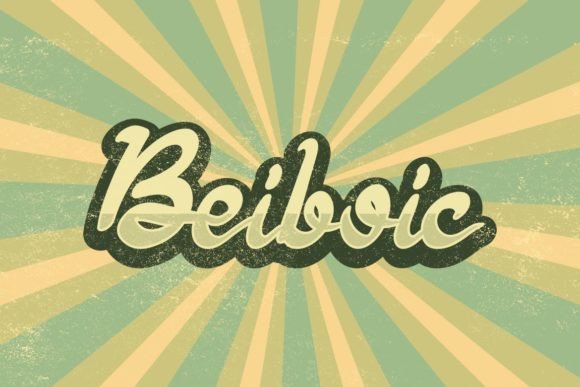
Immerse yourself in the world of Beiboic Font, a captivating script font family that will inject a touch of playful charm into your creative projects. Designed by the talented studioaary, Beiboic is not just a font; it's an expression of joy and exuberance.
With its whimsical and carefree strokes, Beiboic Font dances across your designs, adding a unique and personal touch to every word and phrase. Its enchanting curves and flourishes evoke a sense of wonder and delight, making it the perfect choice for projects that aim to capture the essence of happiness and optimism.
Whether you're a seasoned designer or just starting your creative journey, Beiboic Font is an essential tool in your font collection. Its versatility knows no bounds, making it suitable for a wide range of projects, from whimsical invitations and greeting cards to eye-catching logos and social media graphics.
Imagine the impact Beiboic Font will have on your script tattoos designs. Its flowing lines and delicate details will bring your artistic vision to life, creating tattoos that are both meaningful and visually stunning. Each stroke of Beiboic Font will tell a story, capturing the emotions and aspirations of the wearer in a truly unique way.
Beiboic Font is more than just a font; it's an experience. It's a chance to add a dash of magic to your creative endeavors and leave a lasting impression on your audience. Embrace the joy of Beiboic Font today and let your creativity shine brighter than ever before.